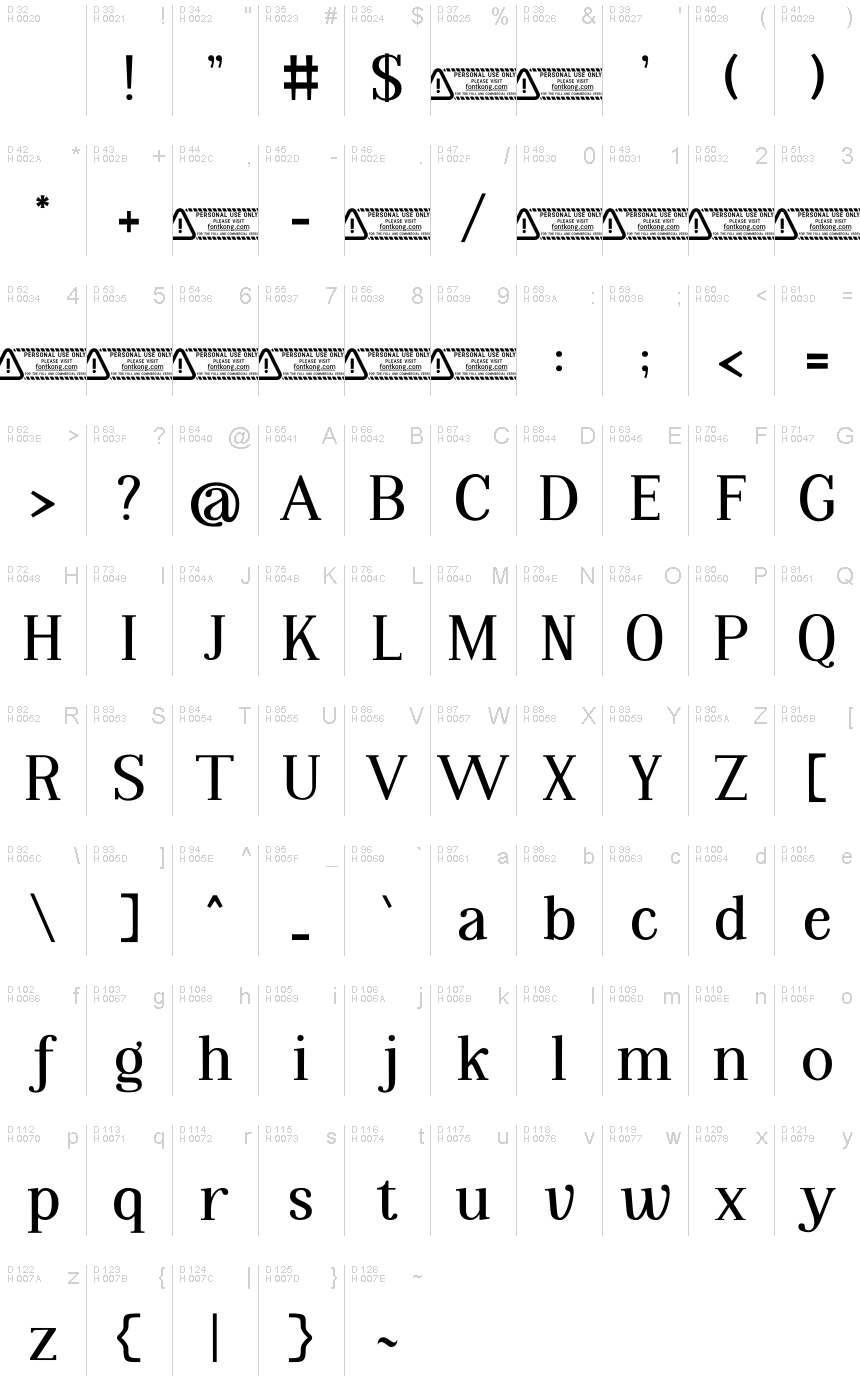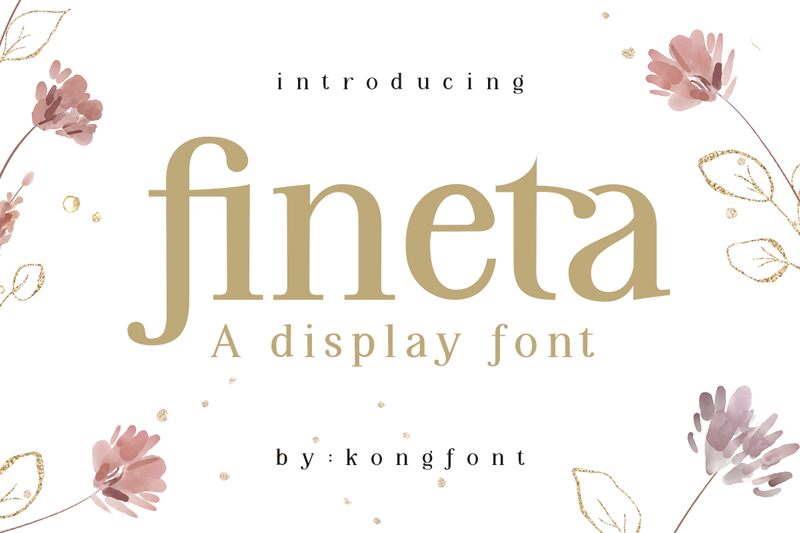
Fineta font by Kong Font is an elegant serif font with a captivating form and a distinct modern touch. Its sophistication sparks a formal mood wherever it's used, making it multifunctional for different design projects. Fineta's elegance lives in its subtle curves, thin details, long edges, and wide straight lines.
Enter this stunning free serif font into your branding presentations like business cards and posters. Websites are also exceptional places to include the typeface whether used as headings or subheadings. Explore further possibilities by adding Fineta to advertisement projects (magazines & billboards), social media posts, event invitations especially weddings & engagements or any personal project.